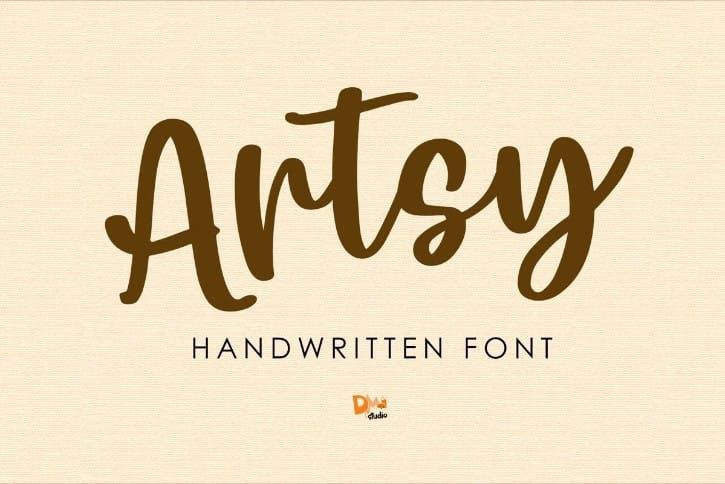
Artsy – Handwritten Font
The Artsy Handwritten Font is a charming and expressive typeface that captures the essence of artistic flair and creativity. Designed with a handcrafted touch, this font adds a personal and authentic feel to your titles and headlines, making them stand out with a touch of artistic elegance.
1. Handcrafted and Unique Design: The Artsy Handwritten Font features carefully hand-drawn letterforms that exhibit the imperfections and nuances of handcrafted art. The organic lines and fluid strokes add a genuine and authentic touch to your designs, evoking a sense of creativity and artistic expression.
2. Expressive and Playful Letterforms: The font’s letterforms are full of character and personality. From whimsical curves to playful descenders, each letter tells a story and conveys a sense of creativity. The Artsy font infuses your titles and headlines with a lively and artistic vibe.
3. Versatile Application: This font is versatile and well-suited for various design projects. Whether you’re working on branding, packaging, invitations, posters, social media graphics, or handmade crafts, the Artsy Handwritten Font brings a unique and artistic touch to your creations.
4. Uppercase and Lowercase Letters: The font includes both uppercase and lowercase letters, providing flexibility and creative freedom in your typographic compositions. Mix and match the cases to create captivating and visually dynamic designs.
5. Punctuation and Symbols: Along with the alphabet, the font includes a comprehensive set of punctuation marks, numerals, and common symbols. This ensures that your text remains consistent and versatile across different design applications.
Unleash your artistic expression with the Artsy Handwritten Font and bring a touch of creativity and elegance to your titles and headlines. With its unique and handcrafted design, this font adds a personal and artistic touch to your designs, making them visually captivating and inspiring. Let your imagination soar and embrace the artistry of the Artsy Handwritten Font.